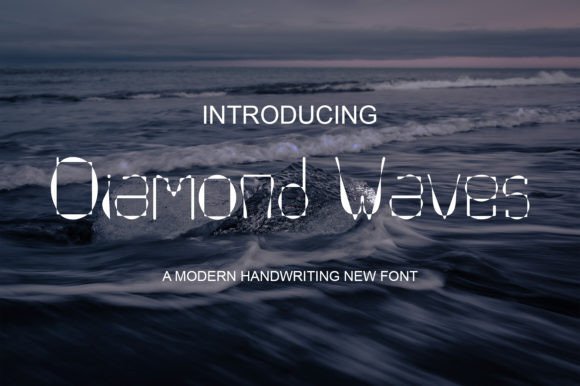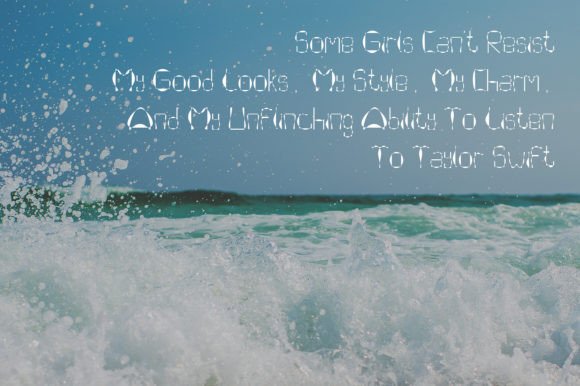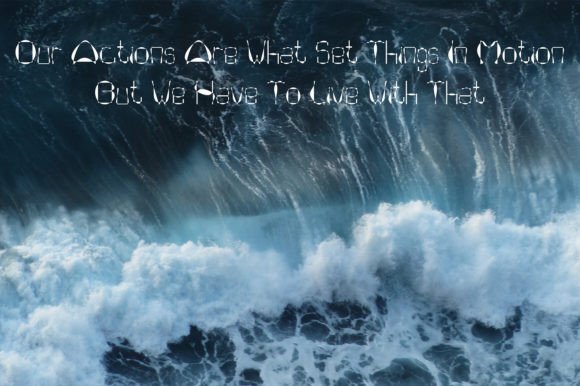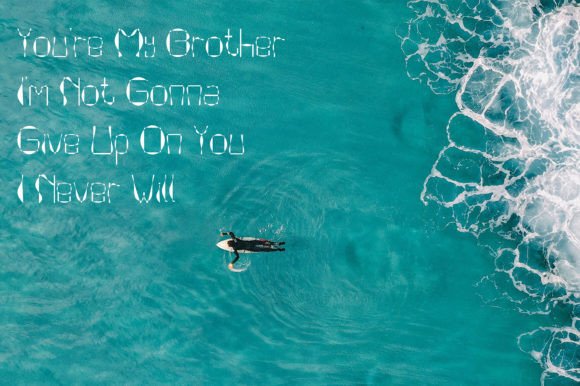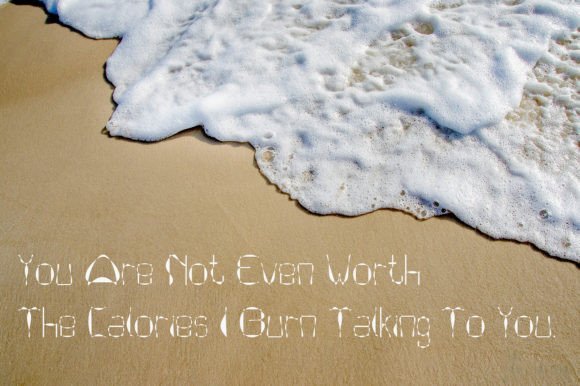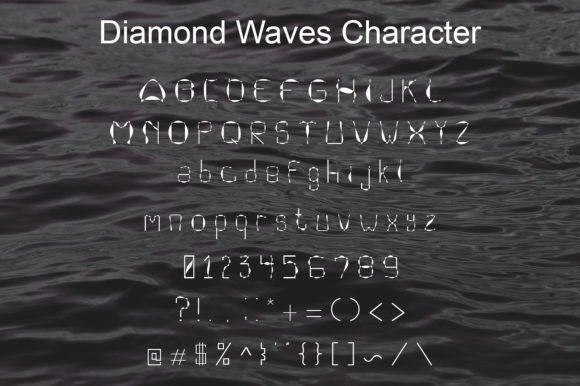
Discover the Timeless Elegance of Diamond Waves Font
As a designer, have you ever found yourself stuck in a creative rut, searching for the perfect font to elevate your project to the next level? You’re not alone. We’ve all been there, scrolling through endless options, hoping to stumble upon that one special font that captures the essence of our vision. And then, it happens – you lay eyes on the Diamond Waves Font, and everything falls into place.
This exquisite handwritten font is more than just a pretty face; it’s a masterfully crafted tool designed to bring your most intricate designs to life. With its delicate curves and perfectly balanced letters, Diamond Waves Font is the perfect choice for creating stunning visual masterpieces. Whether you’re a seasoned pro or just starting out, this font is sure to become your go-to companion for all your design endeavors.
Diamond Waves Font Key Features
- Font Family: Diamond Waves Font is a unique, hand-drawn font family available in 4 different styles: Regular, Italic, Bold, and Bold Italic.
- Character Count: The font family contains a wide range of characters, including uppercase and lowercase letters, numerals, punctuation marks, and special characters, totaling over 200 glyphs.
- Unique Characteristics: The font’s distinctive, wavy design elements and intricate details make it ideal for creating visually striking and eye-catching designs.
Diamond Waves Font Review
I recently had the chance to work with the Diamond Waves font, and I must say it’s a unique and interesting choice for a design project. ✨ The font’s wavy design elements add a dynamic and energetic feel to any text it’s paired with. I particularly enjoy the way it can be used to create a sense of movement and flow.
One of the things that stands out about Diamond Waves is its versatility. ✨ It can be used in a variety of contexts, from headings and titles to body text, and it works well in both digital and print applications. The font is also highly customizable, allowing you to adjust the size, color, and spacing to fit your design needs.
While Diamond Waves is a great font, it’s not without its limitations. ⚠️ One of the main issues I have is that it can be difficult to read at smaller font sizes. The wavy design elements can make it hard to distinguish between individual letters, especially in text-heavy blocks. Additionally, the font may not be suitable for body text in situations where readability is a top priority.
Overall, I think Diamond Waves is a great choice for designers looking to add some visual interest to their projects. While it may not be the best option for every situation, it’s definitely worth considering for projects where a dynamic and energetic feel is key.
- ✨ Unique and dynamic design elements
- ✨ Highly customizable
- ✨ Versatile and suitable for a variety of applications
- ⚠️ Can be difficult to read at smaller font sizes
- ⚠️ May not be suitable for body text in situations where readability is a top priority
Getting the Most Out of Diamond Waves Font
To get the most out of the Diamond Waves font, consider the following tips:
- Use the font in conjunction with bold or italic text to create visual interest.
- Use the font in a combination with other fonts to create a visually appealing design.
The Diamond Waves font is commonly used in: